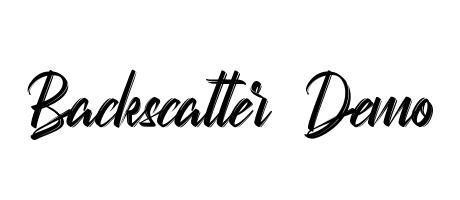
Backscatter Demo
Backscatter Demo: A spirited script font, brimming with playful energy. Its flowing strokes and dynamic curves evoke a sense of carefree movement. Perfect for adding a touch of whimsical charm to logos, posters, or social media graphics, Backscatter Demo radiates a friendly and approachable vibe. Its slightly uneven lines add a handcrafted feel, making it unique and memorable.